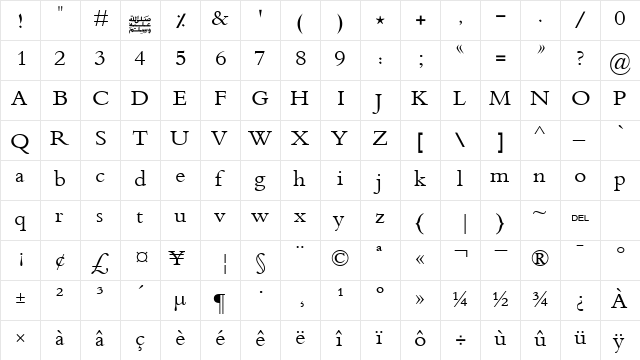
AdvertisingMedium Regular
Design Context for AdvertisingMedium Typeface
AdvertisingMedium is a composed and adaptable typeface that performs quietly and consistently across a wide range of design contexts.
Pro Tip: Pair AdvertisingMedium with a font of contrasting weight or personality to build a more expressive typographic hierarchy.